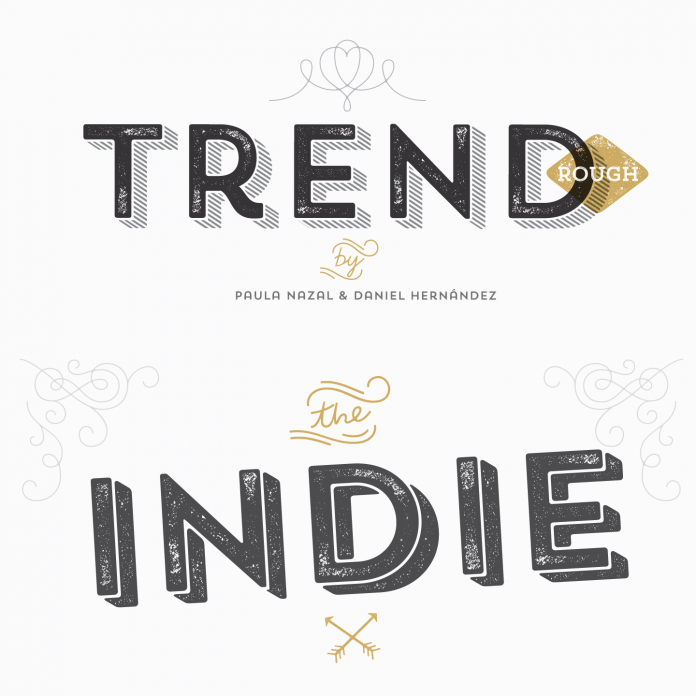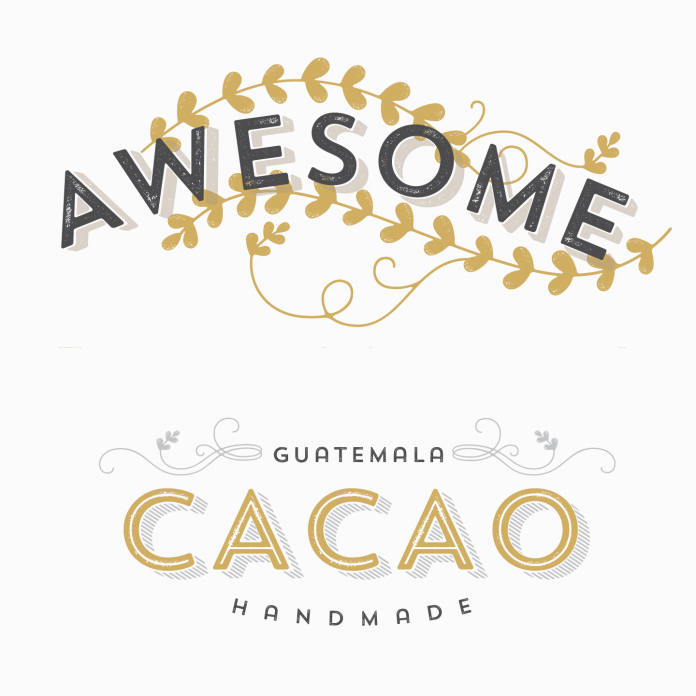
Trend Rough, a font made of layers with a worn look.
After the Trend font and Trend Hand Made, here comes Trend Rough, a worn layered display font from Latinotype. Paula Nazal Selaive and Daniel Hernández have designed this type family in 2014. The typeface is based on a straigt modern font. The complete Trend family captures the aesthetics of fashion and current global trends. Trend Rough comprises different fonts, layers, ornaments, catchwords, and dingbats icons. It is fun to combine the different fonts and layers to create stylish titles and headlines. The worn appearance works great for posters as well as diverse print and screen design applications.